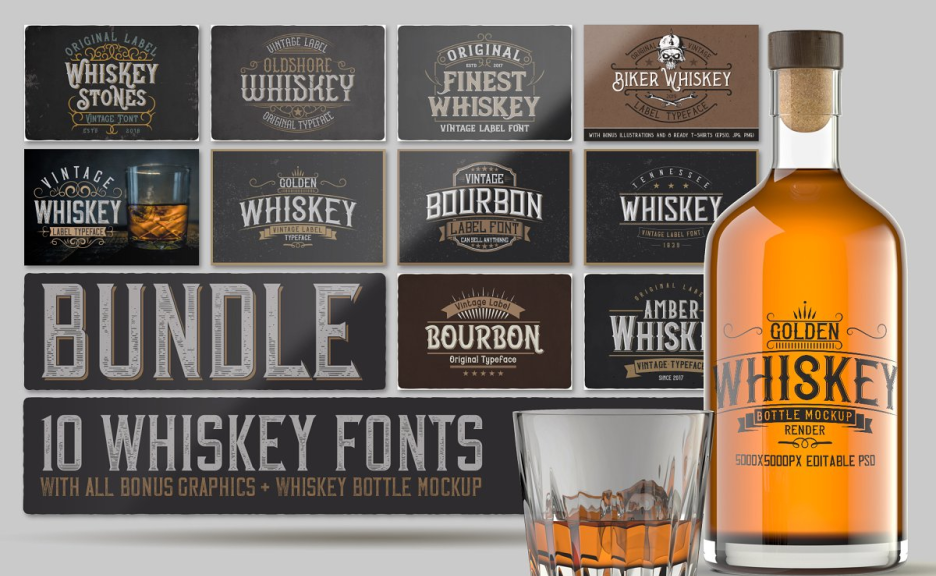
Whiskey Fonts Bundle
The Whiskey Fonts Bundle is a carefully curated collection of unique typefaces that embody the rustic charm and character of whiskey culture. This bundle includes a variety of font styles, each designed to add an authentic touch to your projects.
• Multiple font styles including serif, sans-serif, and script
• Various weights for versatility in design
• Serif fonts perfect for branding and packaging
• Script fonts ideal for logos and invitations
• Sans-serif options suitable for modern web and print applications
• Utilize serif fonts for a classic, timeless feel in branding projects
• Incorporate script fonts for a personal touch in invitations or event materials
• Choose sans-serif fonts for clean, modern web design